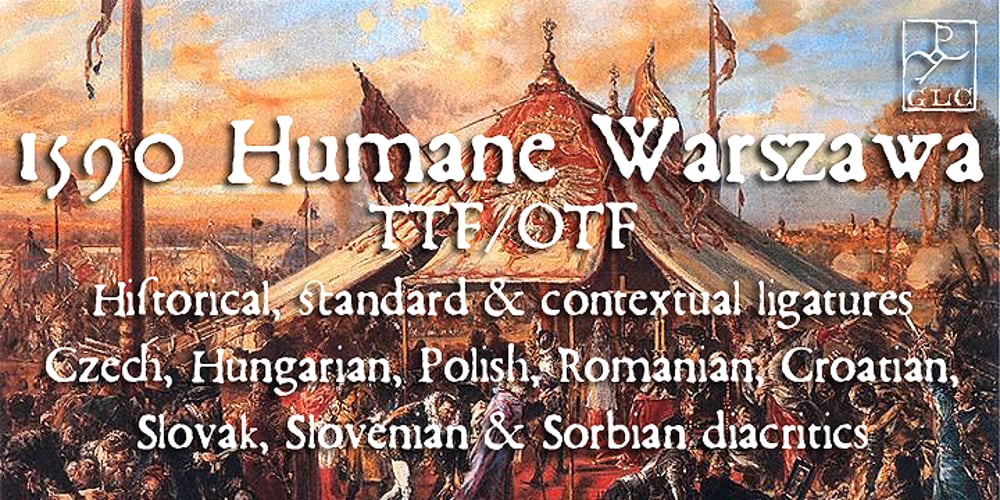
1590 Humane Warszawa Font Family was designed by published by GLC. 1590 Humane Warszawa contains 1 styles and family package options. This family was inspired by a font carved circa 1590 for a Polish editor. We don’t know who was the punchcutter, nor the printer’s name. We have added the special East European diacritics (Czech, Hungarian, Romanian, Croatian, Slovak, Slovenian, Sorbian )as the original font has only the Polish accents. It is a Garamond type, like our 1592 GLC Garamond or 1589 Humane Bordeaux, rough and a little approximate, but attractive. We recommend using OTF version with Windows Vista, providing a best compatibility.